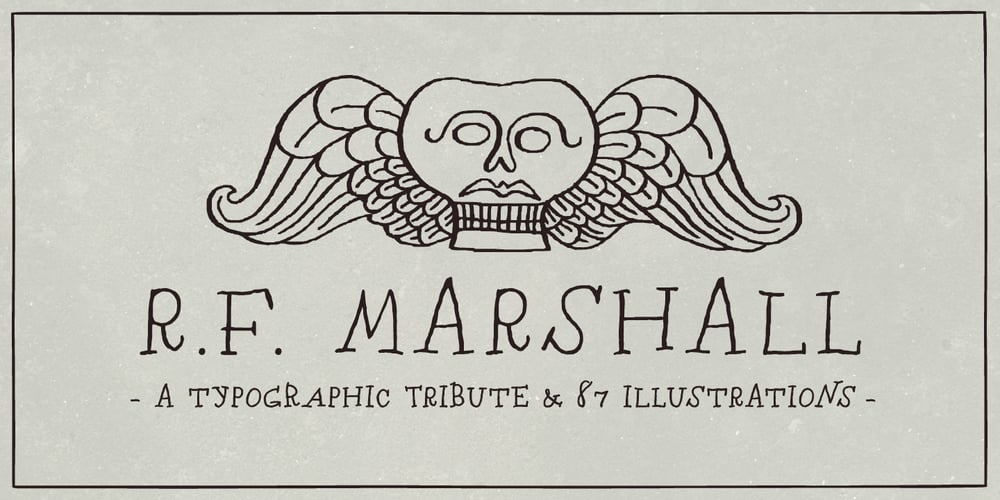
RF Marshall
RF Marshall font
RF Marshall Font Family was designed by Jessica McCarty and published by Magpie Paper Works. RF Marshall contains 2 styles and family package options. RF Marshall was inspired by an 1883 tombstone, tucked away in a pioneer cemetery. The 4-sided marker is sparsely adorned with homespun carvings of a handprint, two tulip poplar leaves, and these words: “RF Marshall died 1883 Aged 72 years.” The font faithfully reproduces the stone’s hand-carved lettering and artwork, as well as artwork from other 18th and 19th century American headstones. It was drawn with calligraphy nibs dipped in walnut ink and delights in a range of end uses including period films, rustic decor, Halloween decorations, historical logos and branding, and on the pages of children’s books.